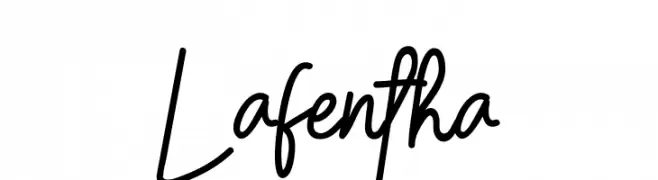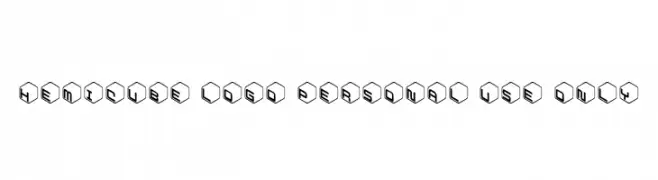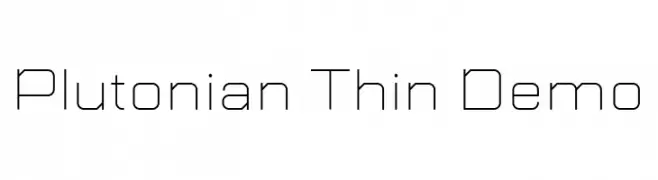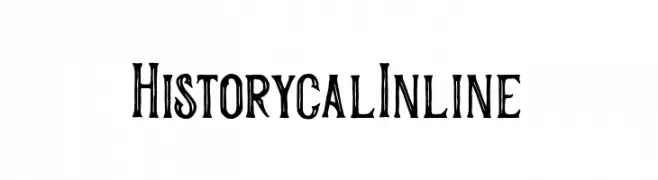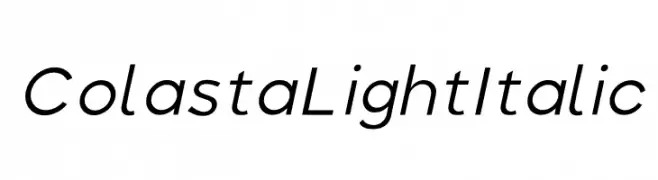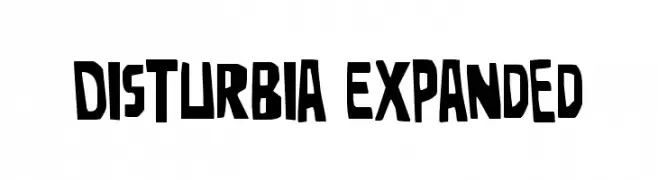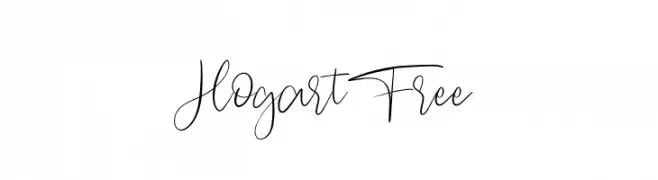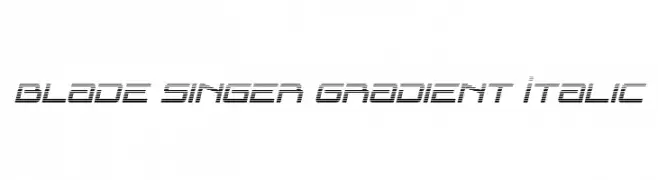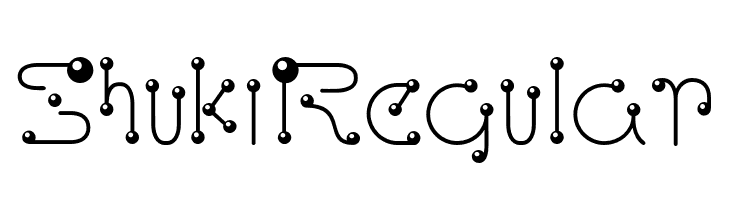
A lively, fluid handwritten font with smooth, flowing curves and a playful bounce.
A geometric font with characters enclosed in hexagons, offering a modern and bold look.
A thin, geometric font with a modern and minimalist design.
A bold, geometric font with a three-dimensional shadow effect and sharp edges.
A vintage, decorative font with bold, artistic strokes and a handcrafted appearance.
A sleek, modern, light italic font with smooth, uniform strokes.
A bold, playful handwritten font with thick strokes and unique character shapes.
A bold, expanded font with an irregular, dynamic style.
An elegant, flowing script font with interconnected, graceful strokes.
A futuristic, italicized font with gradient-striped letters and a dynamic, modern look.